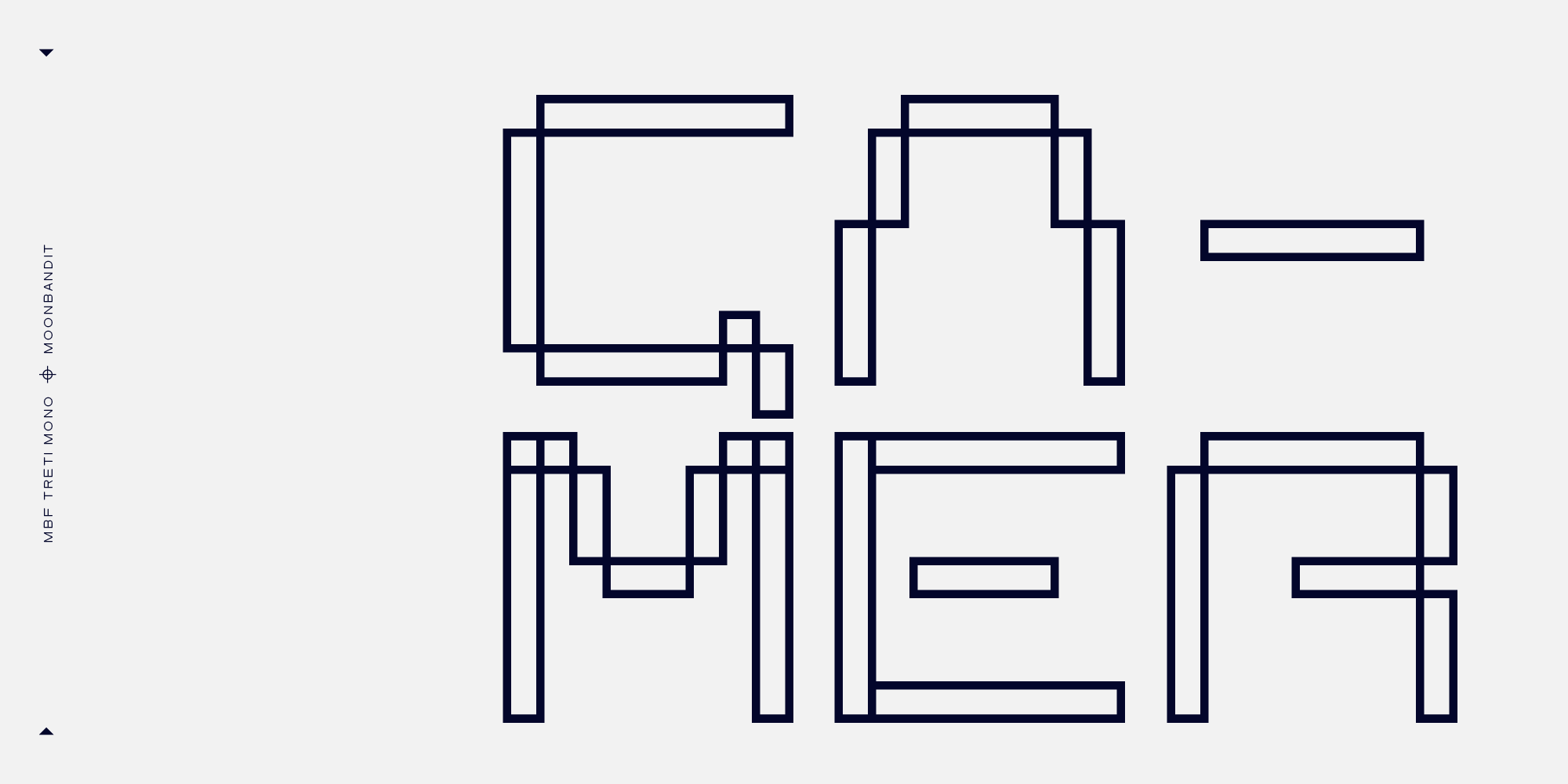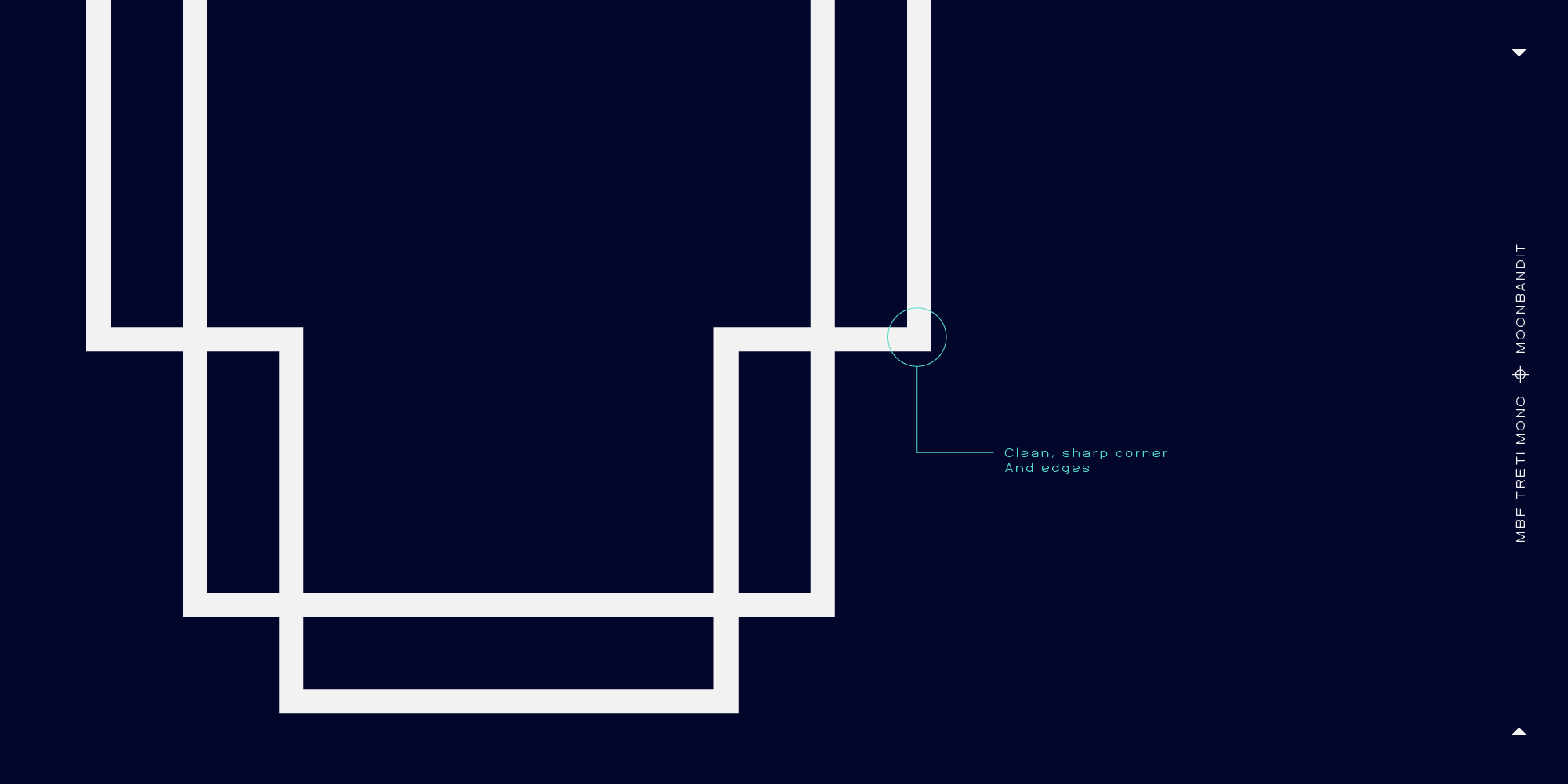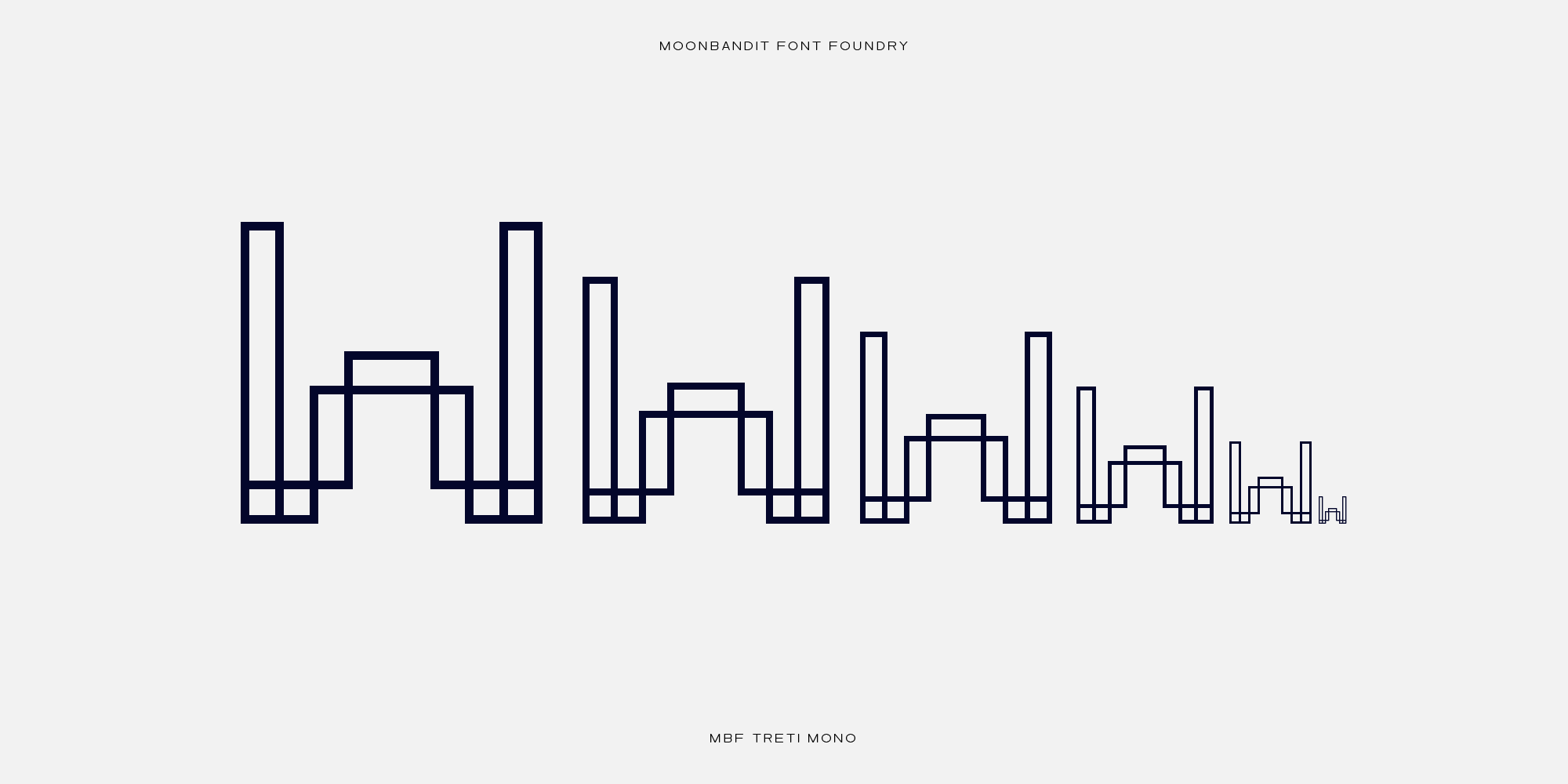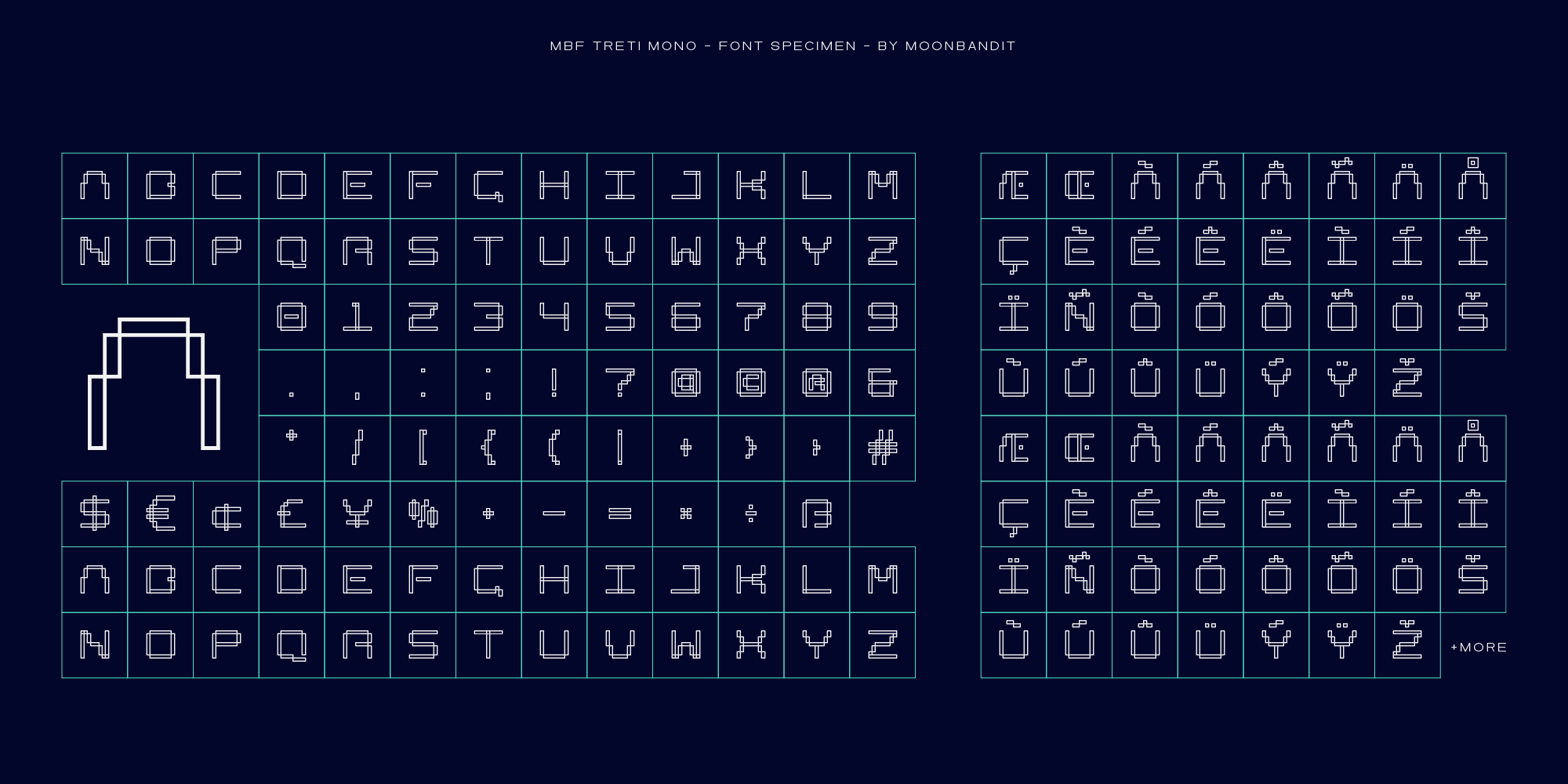
MBF Treti Mono
DIGITAL PATHWAY OF THE MODERN ERA
Introducing MBF Treti Mono – a bold reinterpretation of monospace font. With its single monoline feel and futuristic digital aesthetic, MBF Treti Mono offers a fresh take on experimental display typography. Ideal for projects that demand a tech-savvy vibe and a touch of innovation.